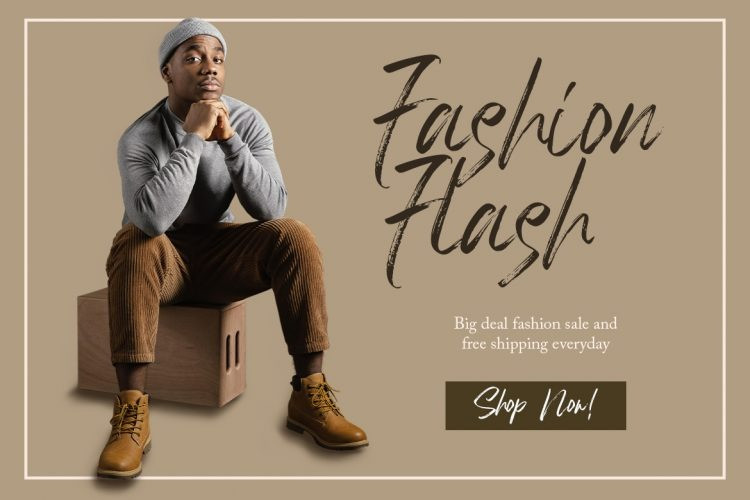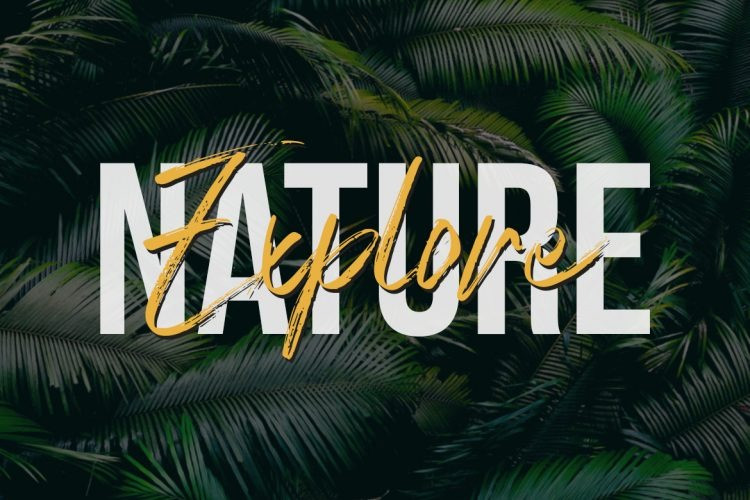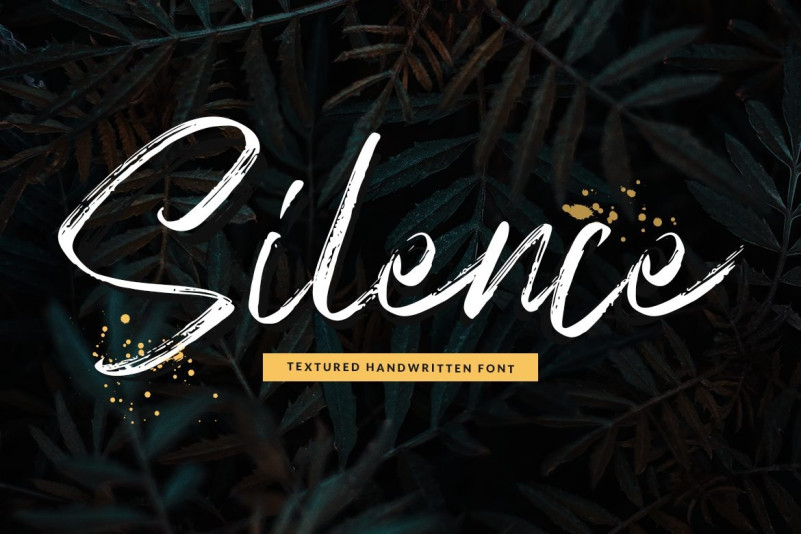
Silence Font
Silence Brush Font is a strong handwritten brush script with bold and casual style. This handmade fonts comes with great legibility and readability.
Each stroke is carefully drawn to display great flow and harmony with a natural look. You can try many variations by accessing opentype features.
Silence are suitable for branding projects, clothing companies, advertising, product packaging and a variety of your creative projects.